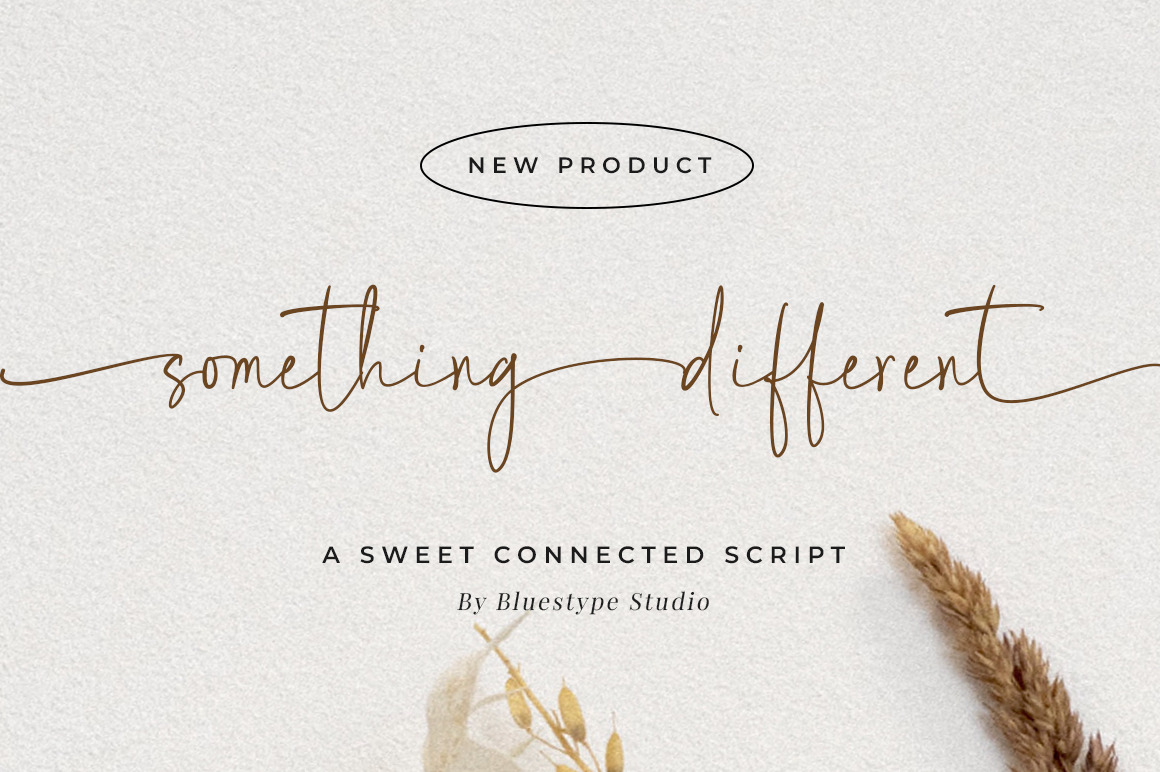
Something Different - Script Fonts
Something Different is a stunning handwritten font with a beauty twist, light and elegant script, is the ideal typeface touch to any design project. This font is PUA encoded which means you can access all of the glyphs and swashes with ease !
This font is suitable for use on branding bussines, fashion, business cards, weddings, t-shirt designs, logotype, magazines, quotes, photography, website, watermarks, invitations, signatures.
- Stylistic Set
- Support Multilingual Languange